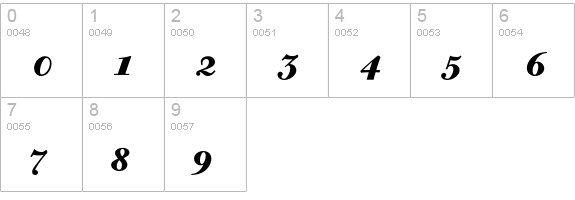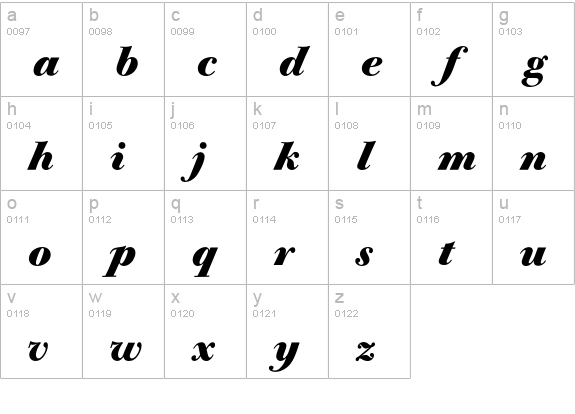
Bodoni Old Face Expert Bold Italic OsF Font Details
Bodoni Old Face Expert Bold Italic OsF is a strong, high-contrast, italic variant in the Bodoni typeface family \xE2\x80\x94 well suited to headlines, attention-grabbing titles, and strong calls-to-action.